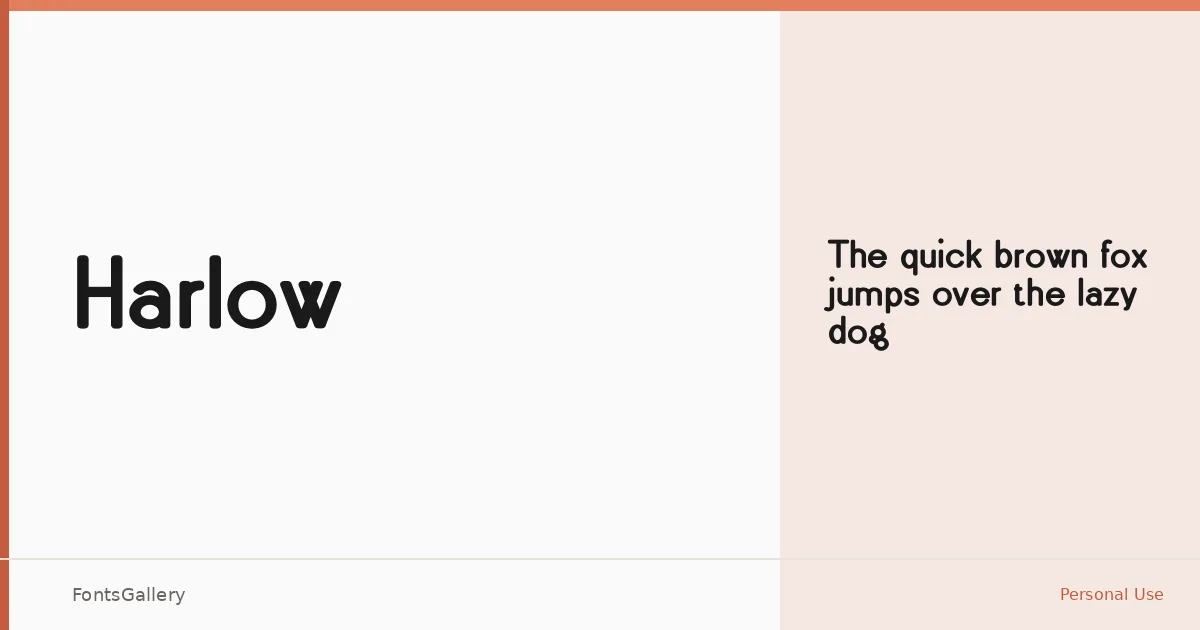
About Harlow Font
There is a quiet confidence to this sans serif — the kind that holds its shape at large sizes without shouting. The single Regular weight arrives as an OTF file, drawn with an elegant restraint that keeps letterforms open and uncluttered, landing somewhere between the warmth of humanist geometry and the cool precision of modern grotesques.
Harlow reads as minimal and professional, with proportions tuned for display rather than extended body copy. Its forms carry a contemporary mood — clean strokes, considered spacing, and none of the decorative excess that clutters weaker headline faces. At the sizes where it performs best, the architecture of each glyph becomes its own argument for restraint.
The face earns its place in branding systems, logo lockups, magazine headlines, and website headers — anywhere Latin-script text needs presence without noise. It pairs well alongside Canela, Armelie, 321 Impact, ABC Arizona, and Kactigona, each offering a contrasting texture that can anchor it in a layered typographic system. Note that the Latin coverage is partial, so verify character support before committing to a multilingual project.